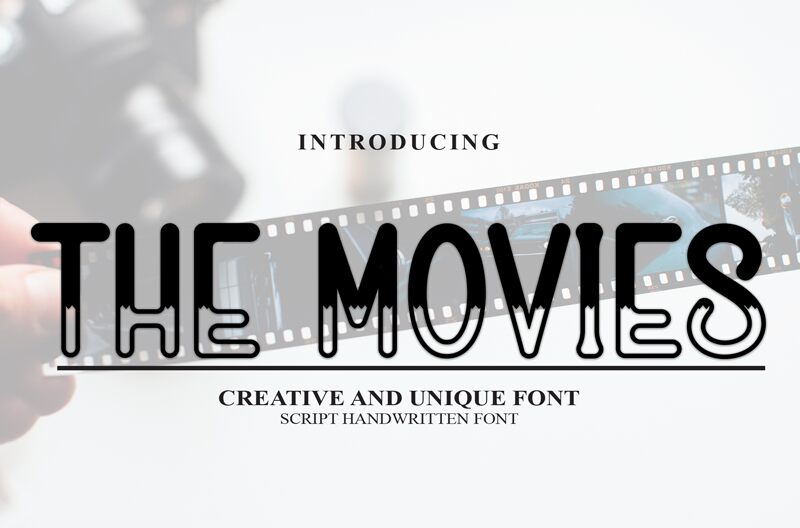
The Movies
The Movies is a captivating handwritten font that instantly evokes a sense of cinematic nostalgia. Designed by Andi Moz, this condensed typeface boasts a distinctive, stylized aesthetic that seamlessly blends retro flair with contemporary sensibilities. The bold, dynamic strokes and unique letterforms lend an unmistakable visual impact, making this font an ideal choice for a wide range of design applications, from movie posters and film titles to branding and creative projects that seek to capture the allure of the silver screen.
Its versatility shines through in its ability to convey a sense of vintage charm while maintaining a modern edge, making it a versatile tool for designers seeking to craft engaging, impactful compositions.